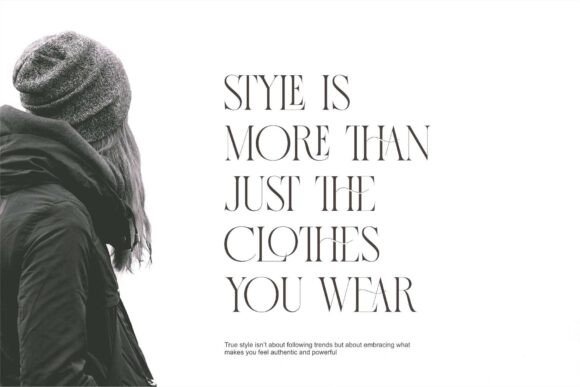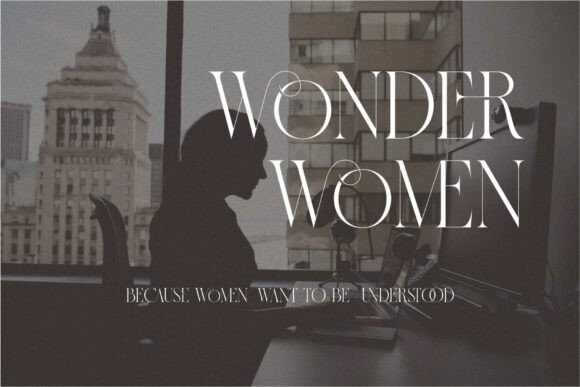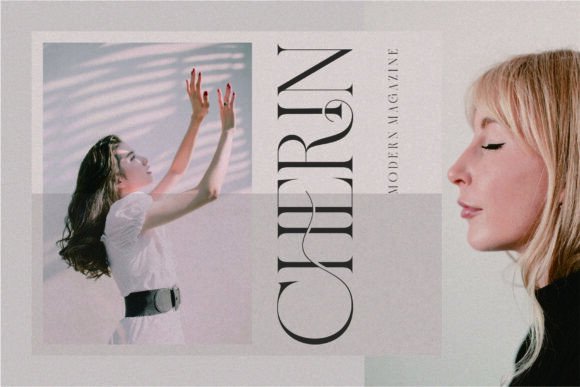
The Grache Font: A Modern Serif Marvel for Designers and Crafters
I’ll never forget the struggle I faced while working on a branding project for a luxury beauty client. The brief was simple: create an elegant, high-end look that exudes sophistication. But, as I scrolled through my font library, I found myself stuck. That’s when I stumbled upon the Grache font, and it instantly became my go-to. In this article, I’ll share my love for this modern serif font, its capabilities, and how you can make the most of it in your designs.
An Honest Review of Grache Font
What I Love About Grache Font
- ✨ Modern yet elegant: Grache’s sleek lines and minimalist vibe make it perfect for luxury brands, beauty designs, and elegant crafting.
- ✅ Versatile: This font shines in various design applications, from templates and brochures to logos, invitations, and video branding.
- 💡 Inspired by classic minimalism: Grache’s roots in famous minimalist logos give it a unique edge, setting it apart from other serif fonts.
While Grache is an excellent font, there are a few things to keep in mind:
- ⚠️ Limited use in body text: Due to its elegant nature, Grache might not be the best choice for lengthy body text. Consider pairing it with a more readable font for optimal results.
- 🤔 Some glyph limitations: While Grache offers a range of OpenType features, some users might find the glyph selection limited compared to other fonts.
- Experiment with OpenType features, such as stylistic alternates, to add a touch of elegance to your design.
Grache’s design inspiration stems from the world of minimalist logos. Its creator aimed to craft a font that embodies the simplicity and elegance of famous logos while offering a modern twist. The result is a versatile font that can elevate various design projects.
Q: What makes Grache suitable for luxury brands?
A: Grache’s modern serif design, inspired by minimalist logos, gives it a sophisticated and elegant feel, making it perfect for luxury brands.
Q: Can I use Grache for body text?
A: While Grache is elegant, it’s best used for titles, headings, or short paragraphs. For longer body text, consider pairing it with a more readable font.
Q: Does Grache support OpenType features?
A: Yes, Grache offers a range of OpenType features, including stylistic alternates, glyphs, and ligatures, allowing for creative and elegant designs.
Q: Is Grache suitable for video branding?
A: Absolutely! Grache’s modern and elegant design makes it an excellent choice for video branding, titles, and motion graphics.